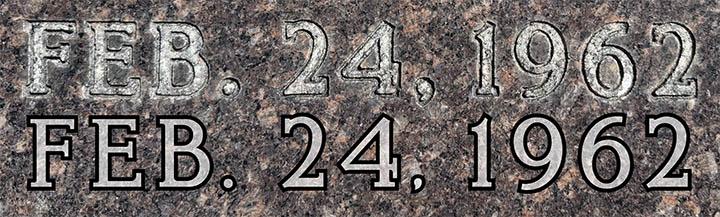
MLCKeymasterHi Carl, this is a custom Cold Spring Granite font name Monument Times New Roman. It is based on Times but with some changes, including the letter ‘J’, and entirely different numbers.
MLCKeymasterHi John, this is Lombardic style lettering, sometimes also referred to as Uncial in the monument industry, though it is not an uncial style. As with many bronze lettering styles, I believe this is a custom alphabet created by a bronze company.
MLCKeymasterThis appears to be Apollo MT Semibold.
MLCKeymasterHello, I believe this is Cormorant Garamond Bold Italic.
MLCKeymasterThis appears to be a hand-drawn version of the font Benguiat Bold.
MLCKeymasterThe font needed to match the name and dates looks like the Olson font in the Monu-Cad software. There are no other versions available outside of Monu-Cad that I am aware of.
I believe the font used on the surname may be a different font.
MLCKeymasterHello, this appears to be Zapf Chancery Italic, with the ‘J’ swapped out with one from another font. it is possibly from Regular Zapf Chancery, but manually slanted, or perhaps the ‘J’ from Lucida Calligraphy, which is another chancery style font.
MLCKeymasterHello this is a version of Clarendon Condensed.
MLCKeymasterHello Brian, I believe this is a version of the Univers font.
MLCKeymasterHello, this is a font named Tiffany.
MLCKeymasterHello Chris, this is a version of the Commercial Script font.
MLCKeymasterThis appears to be hand-drawn lettering. In the 1960s there were only a few “fonts” available for reproducing lettering in the form of plastic or metal letters, and at that time they were all memorial industry specific styles. Though it was possible to hand-draw lettering styles based on existing typefaces, fonts like Baker Signet were not used on memorials until sometime in the 1990s as the digital era was underway.
MLCKeymasterThis is the latin characters in the Google font named Aref Ruqaa Bold. Additionally, the font you named as Tailends is based on a free font named Black Chancery, of which there are several free versions available online with some differences.